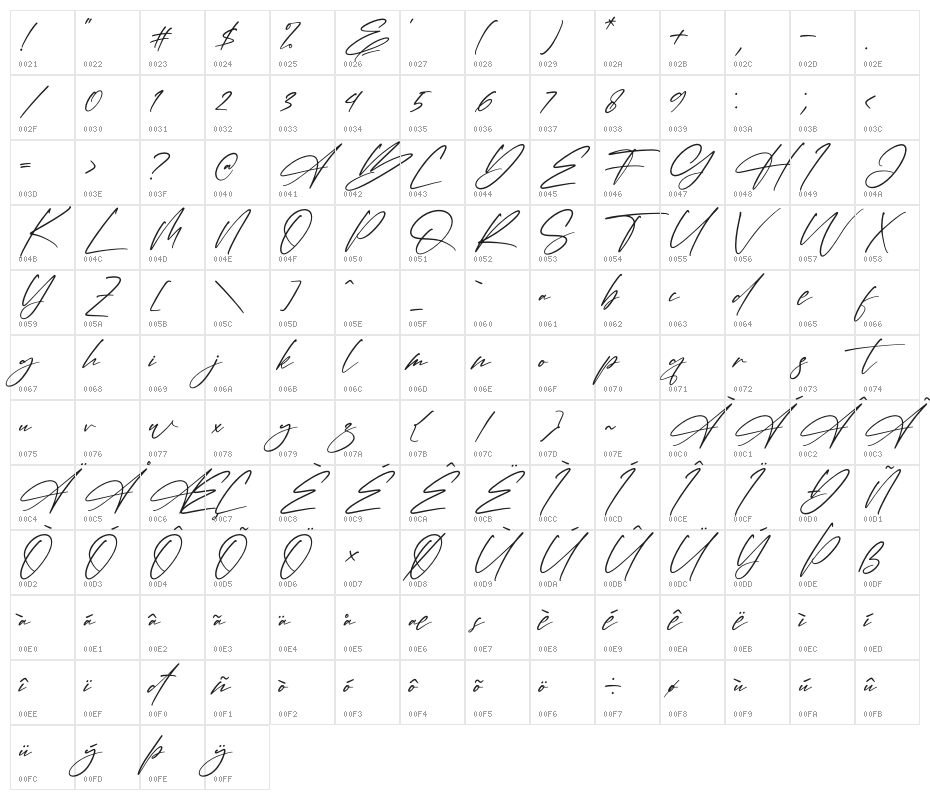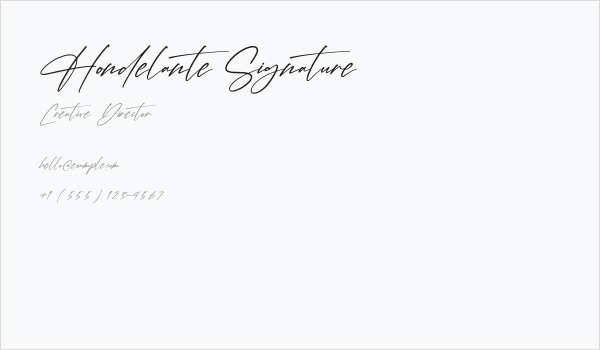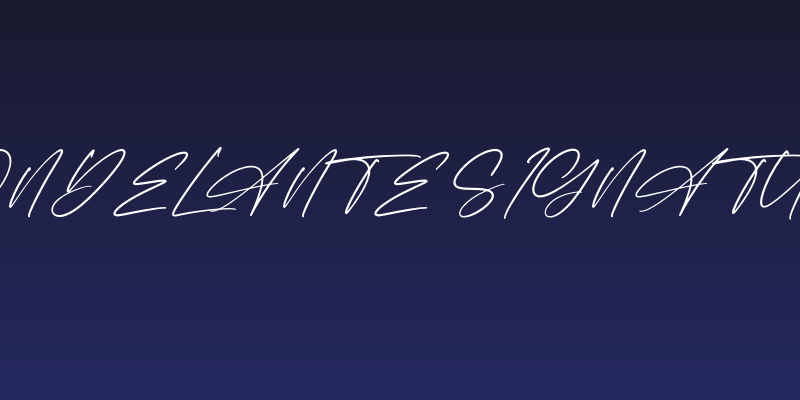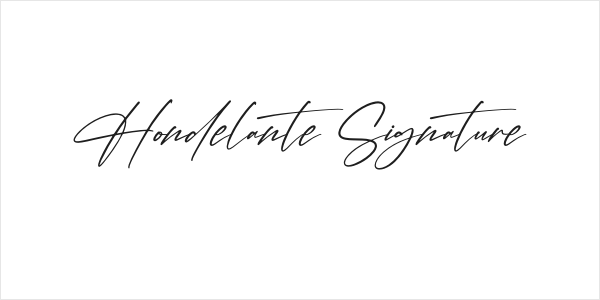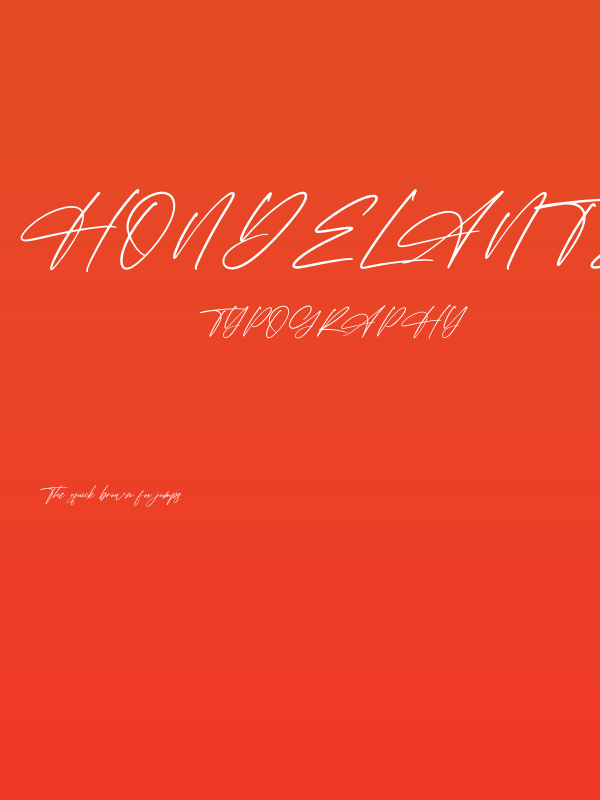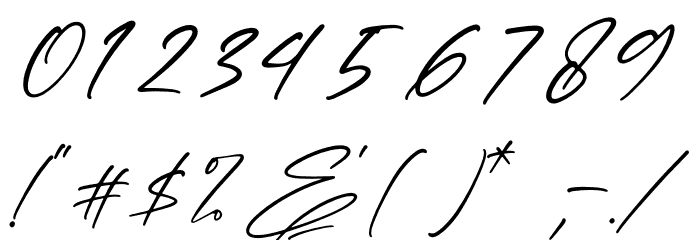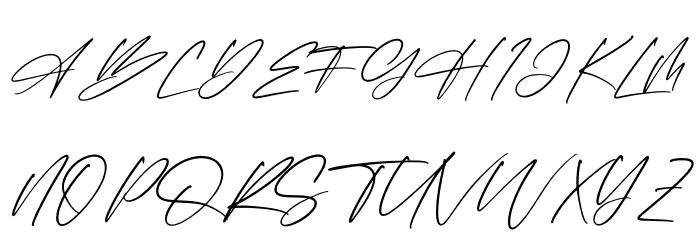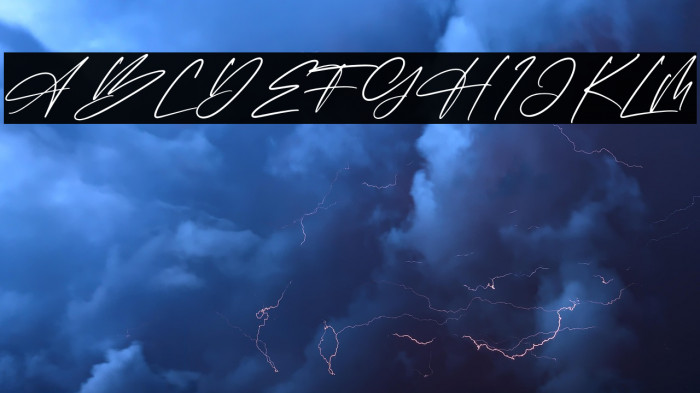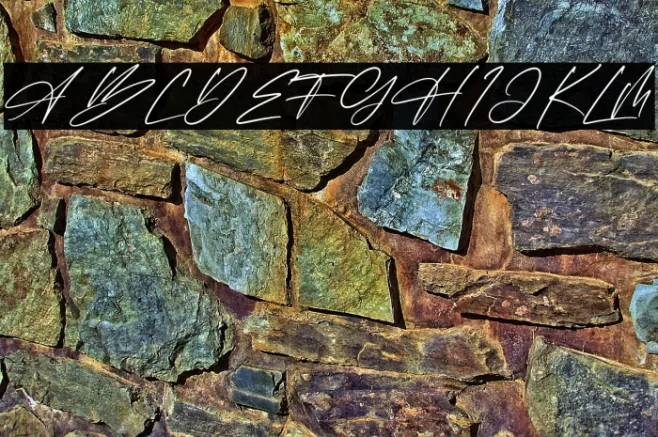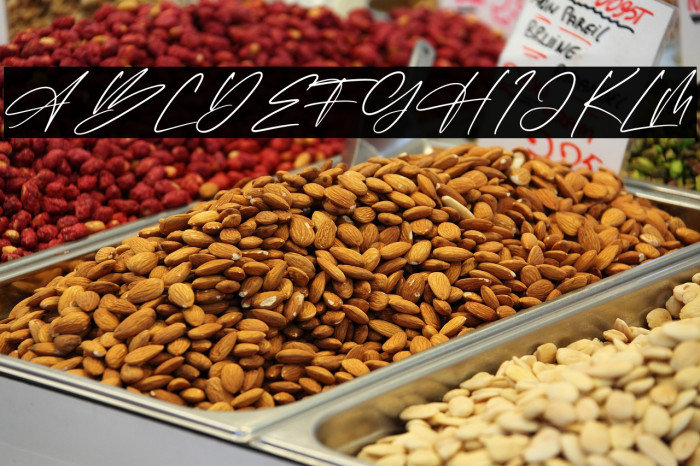
Hondelante Signature Font
Hondelante Signature Description
This font exudes a sophisticated and elegant handwritten style, characterized by its fluid and continuous strokes that mimic natural handwriting. The uppercase letters are slightly more formal, with a graceful slant and elongated forms, while the lowercase letters maintain a casual yet refined appearance. The numbers and special characters are consistent with the overall style, offering a seamless integration for various uses. The font's delicate lines and smooth curves create a sense of movement and grace, making it ideal for projects that require a personal touch.
| Overall Style | Elegant, Sophisticated |
| Proposed Projects | Ideal for wedding invitations, personal branding, greeting cards, and elegant packaging designs. |